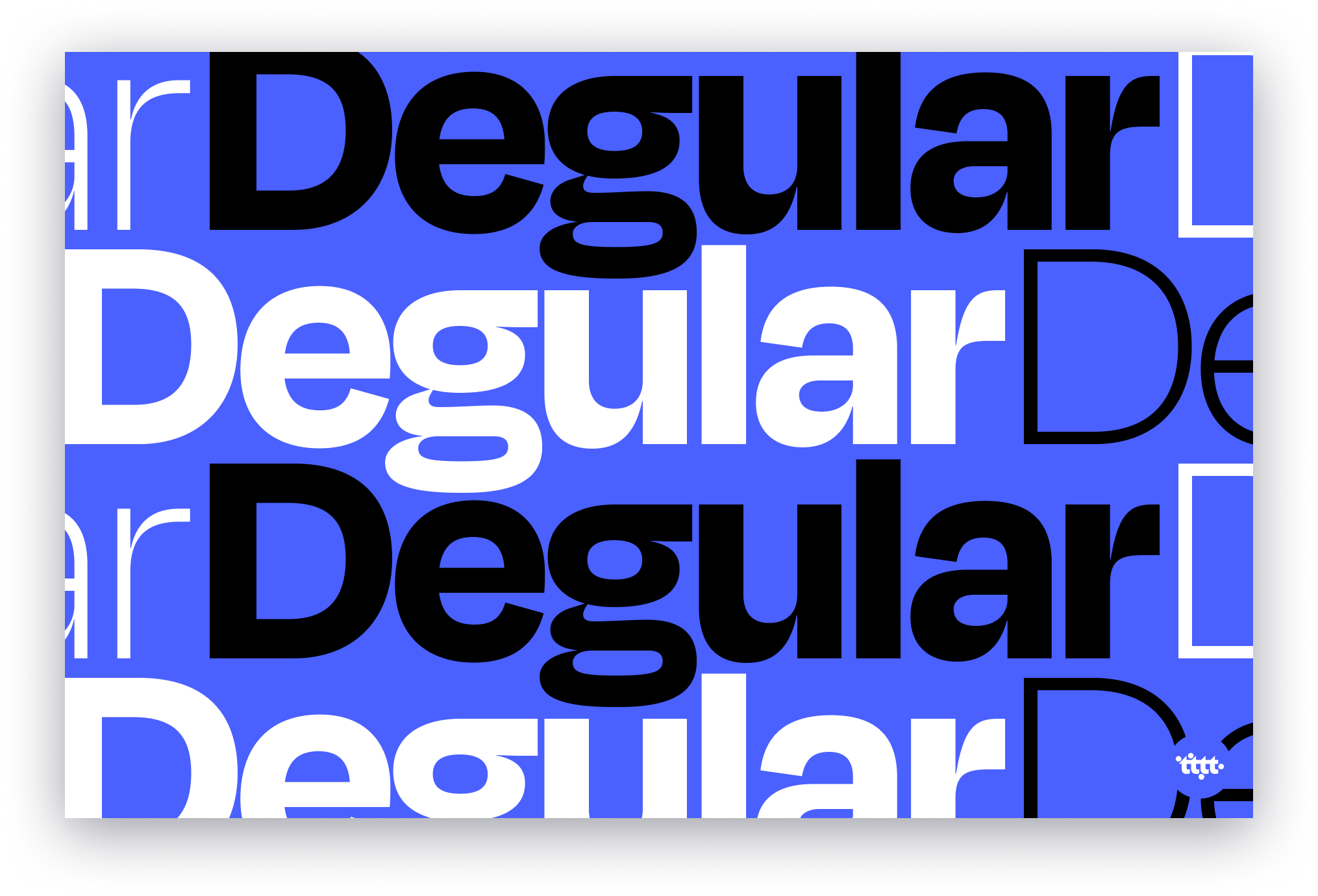
Why Should the Nerds have all the Fun?
As promised, I bring details and dates this time! Be sure to read all the way to the end. đ Fair Warning: This weekâs issue doubles as a love-letter to one of my favourite genres of type. Ready for the deets?
𤤠Ugly Delicious, Type Edition đ¤¤
GROTESQUES. We briefly discussed grotesques in our last issue, but if you know anything about me, you know I love and heavily use grotesques. What are Grotesques? What makes them grotesque? Itâs time for a deep dive!
Grotesques are the genre of sans type created around 1815. Theyâre slightly crude but have a lot of visual character. Thatâs usually a fair way to spot them in the wild. Grots were initially inspired by sign type, solid, bold forms suitable for headlines and advertisements. Over time, they lost some of their quirk, got more sleek and polished and neutral as Neo-Grotesques (read: Helvetica).
As for why they were deemed âgrotesqueââ well, sans serifs were considered pretty renegade for their time. They were seen as quite ugly and obnoxious compared to their glamorous predecessors â high-contrast, modern serifs and Roman type.
If youâre keen on reading more about Grots, check this out.
đđťââď¸ Why be Regular, when you can be Degular? đđťââď¸
DEGULAR. To celebrate grotesques in all their glory, this time, I present you, Degular. If you are familiar with the brilliant work of James Edmondson (type designer, creator of Degular, and all-round genius) down at OH no Type Co, youâll know that Degular is an atypical addition to the foundryâs roster.
In Jamesâs own wordsâ
While {most of} the fonts around here scream in desperate need of your peepersâ gaze, Degular aims to fade into the background (âŚ) Degular also provides a once-in-a-lifetime opportunity to use an Ohno font more than once!
Degular is Ohnoâs take on a familiar and beloved genre of Sans. The story of Degular might be the only thing better than Degular itself. Give this a watch!
âWHY SHOULD THE NERDS HAVE ALL THE FUN?â, the title of my talk at TypeWknd. And as promised, hereâs the scoopâ
I started tttt to share my learnings and type know-how, something that had become natural to me through my education, exposure and enthusiasm. But typography is very inaccessible to most people. Most designers too! And it has been, for a very long time. Everyone knows and acknowledges the importance of good typography but thatâs where it starts and ends!
Where does one go from there? Whatâs beyond a series of Design 101 articles, hating Comic Sans and honing Google fonts?
Why Should the Nerds have all the Fun? Let's talk about how we can make typography more accessible, the story of tiptoptypetips and the way ahead!
Degular is a great typeface ! Seems somewhat similar to Hagrid by Zetafonts, another great typeface â¤ď¸â¨